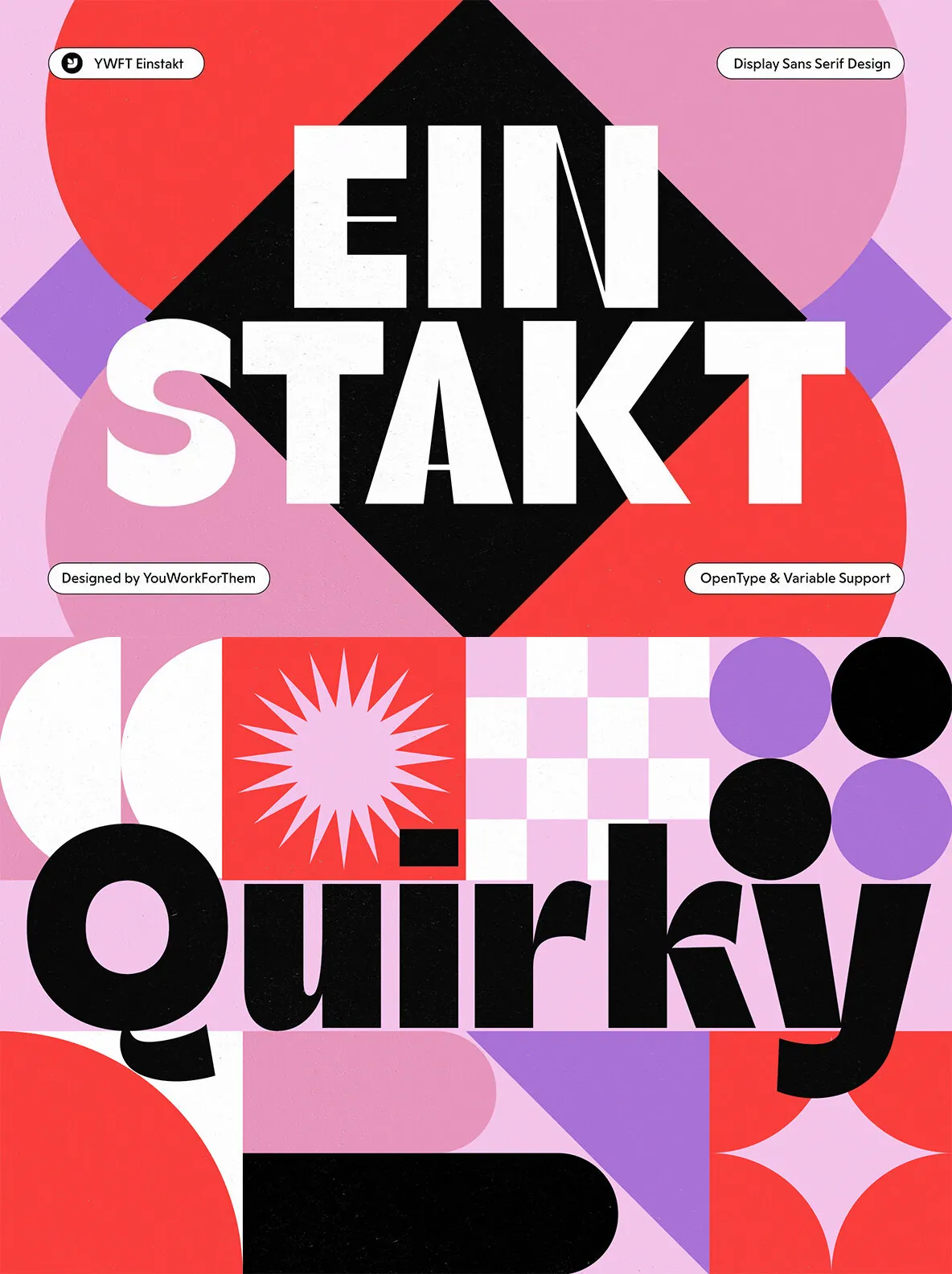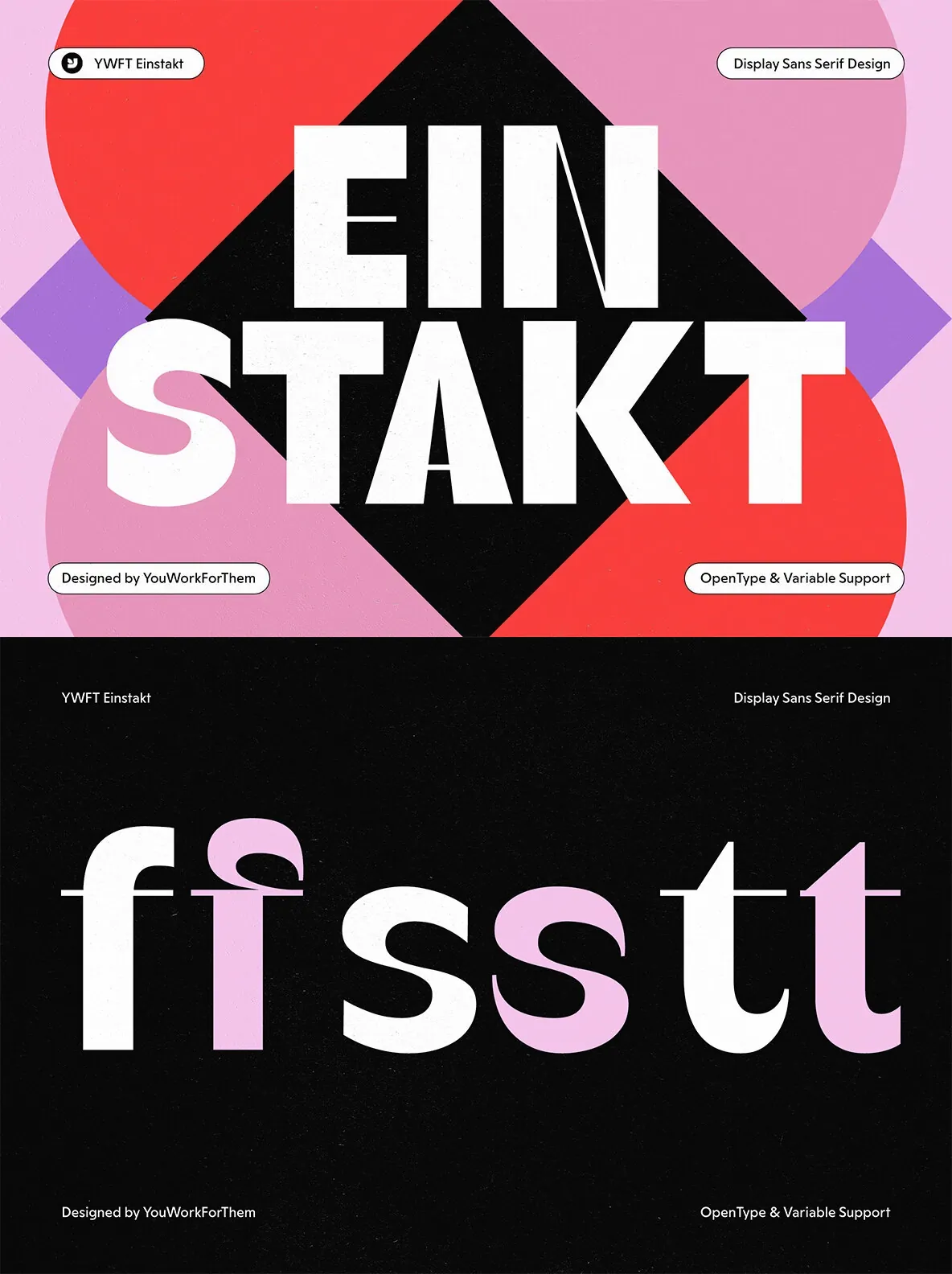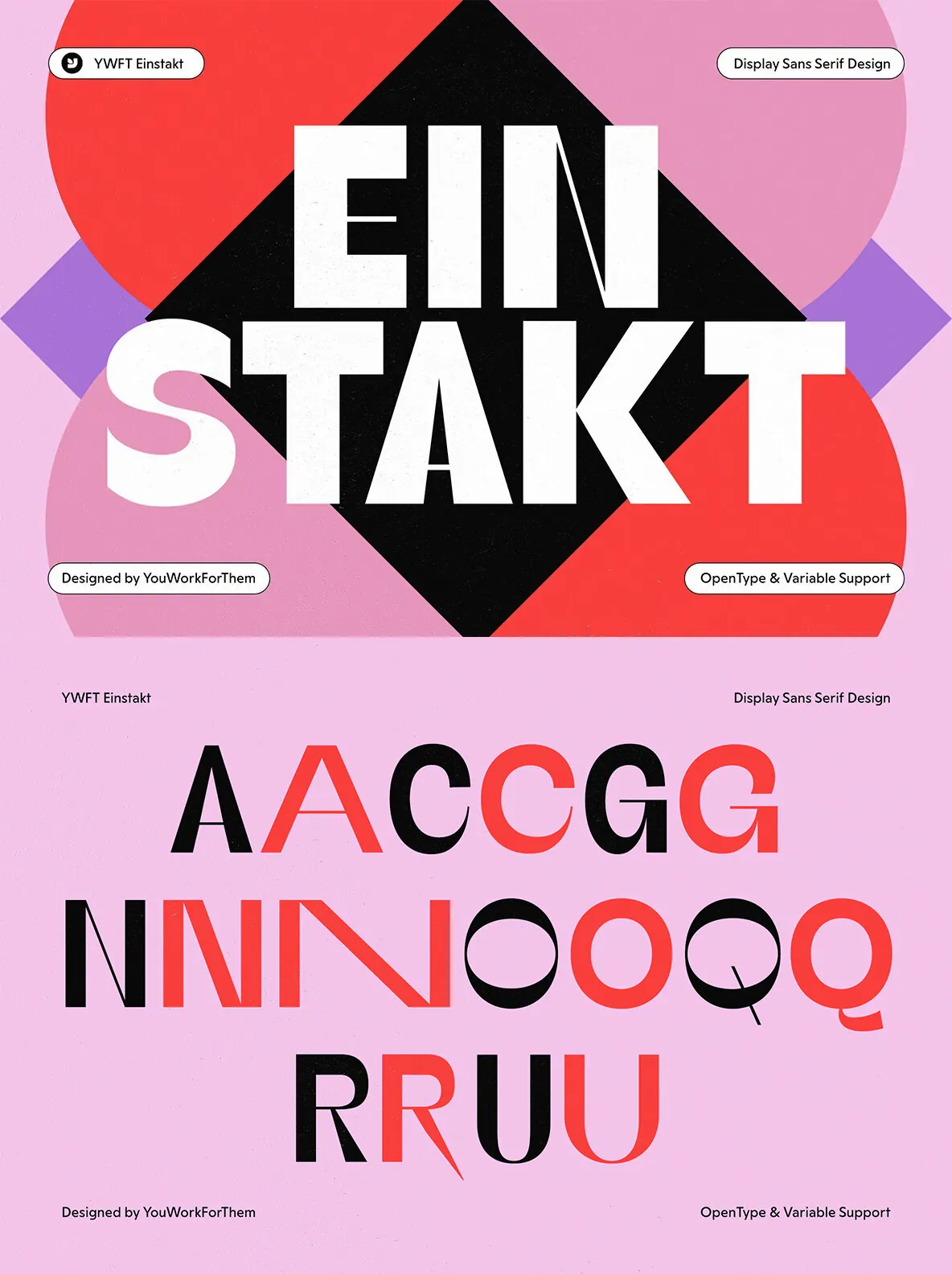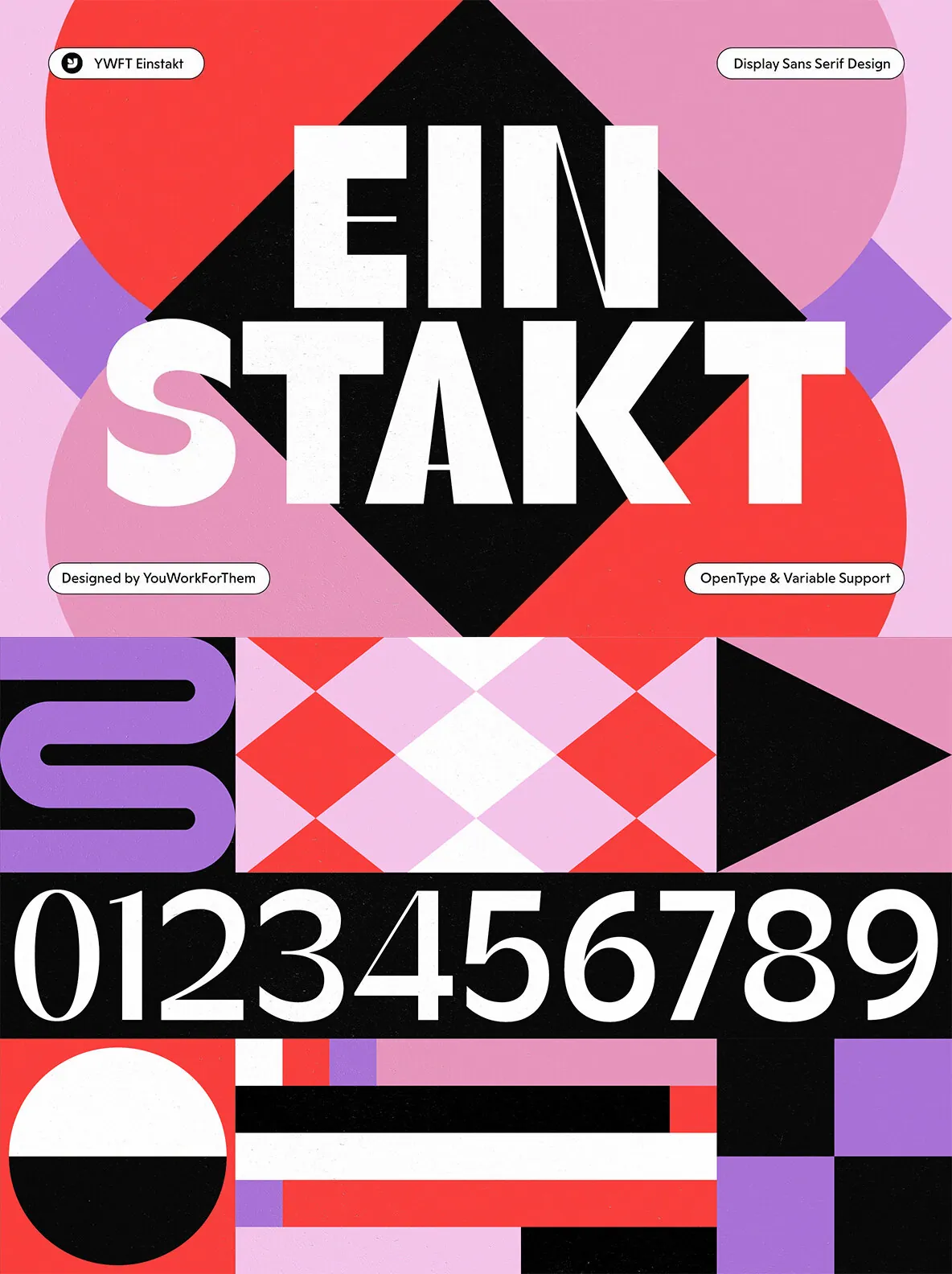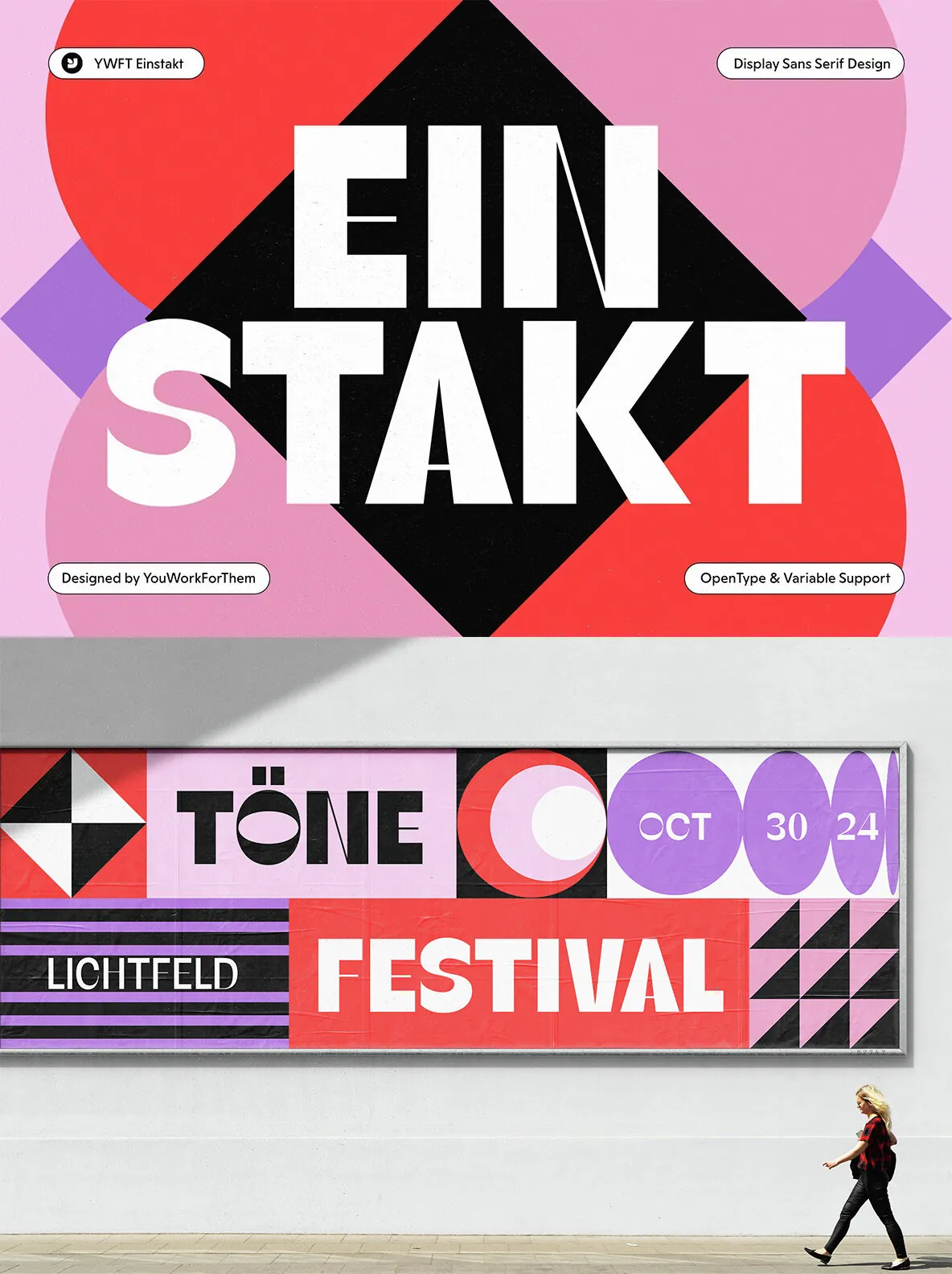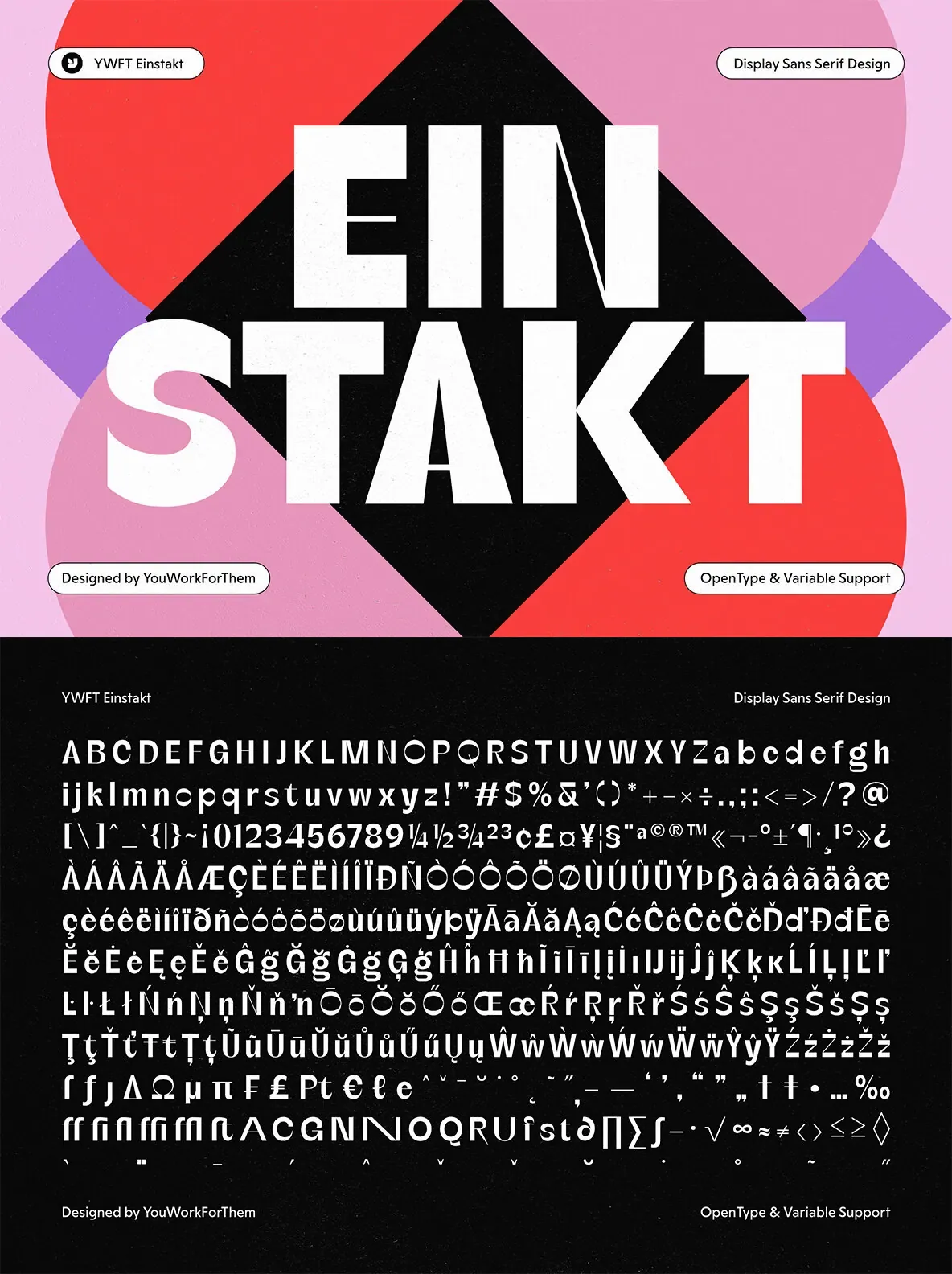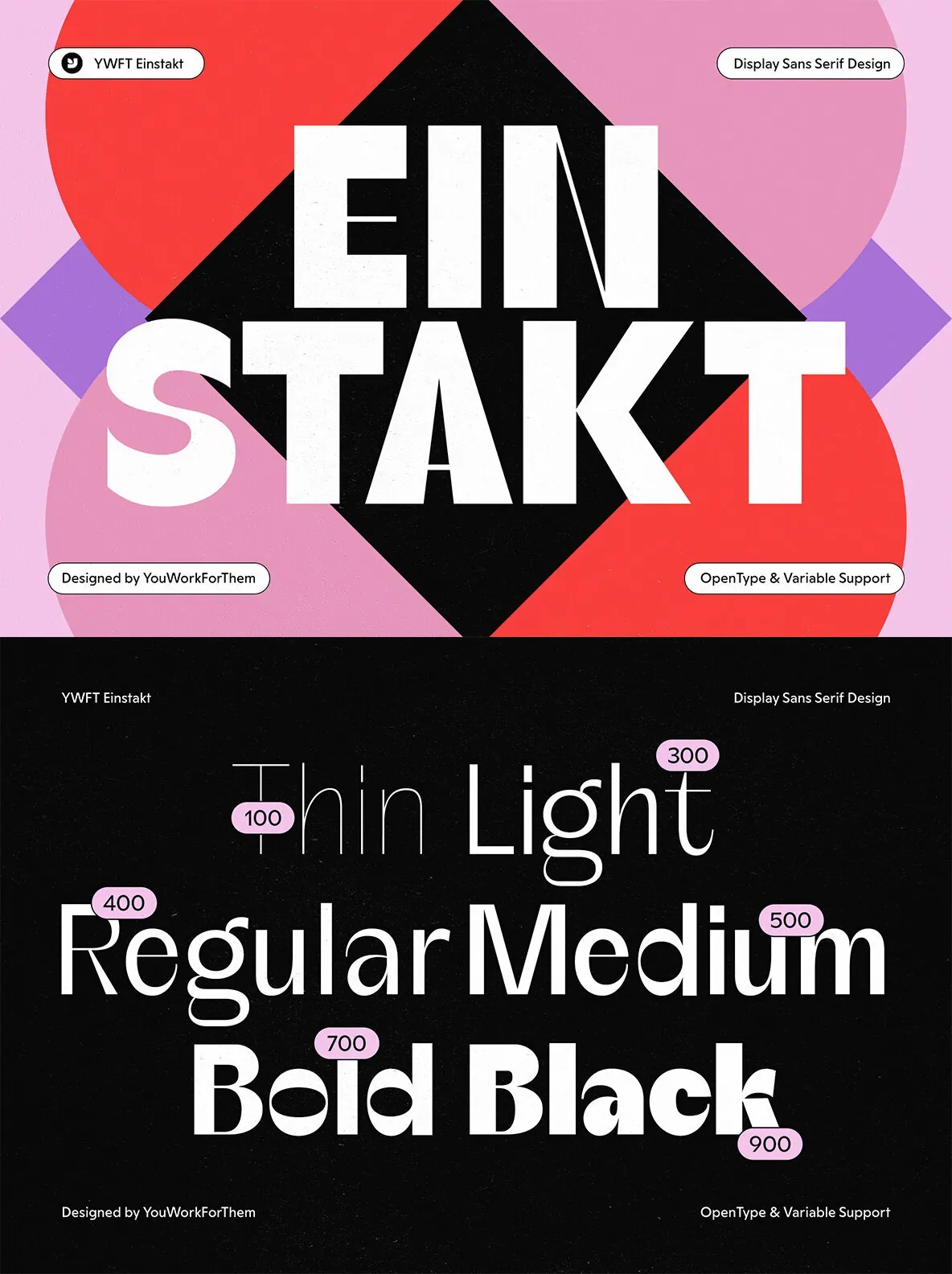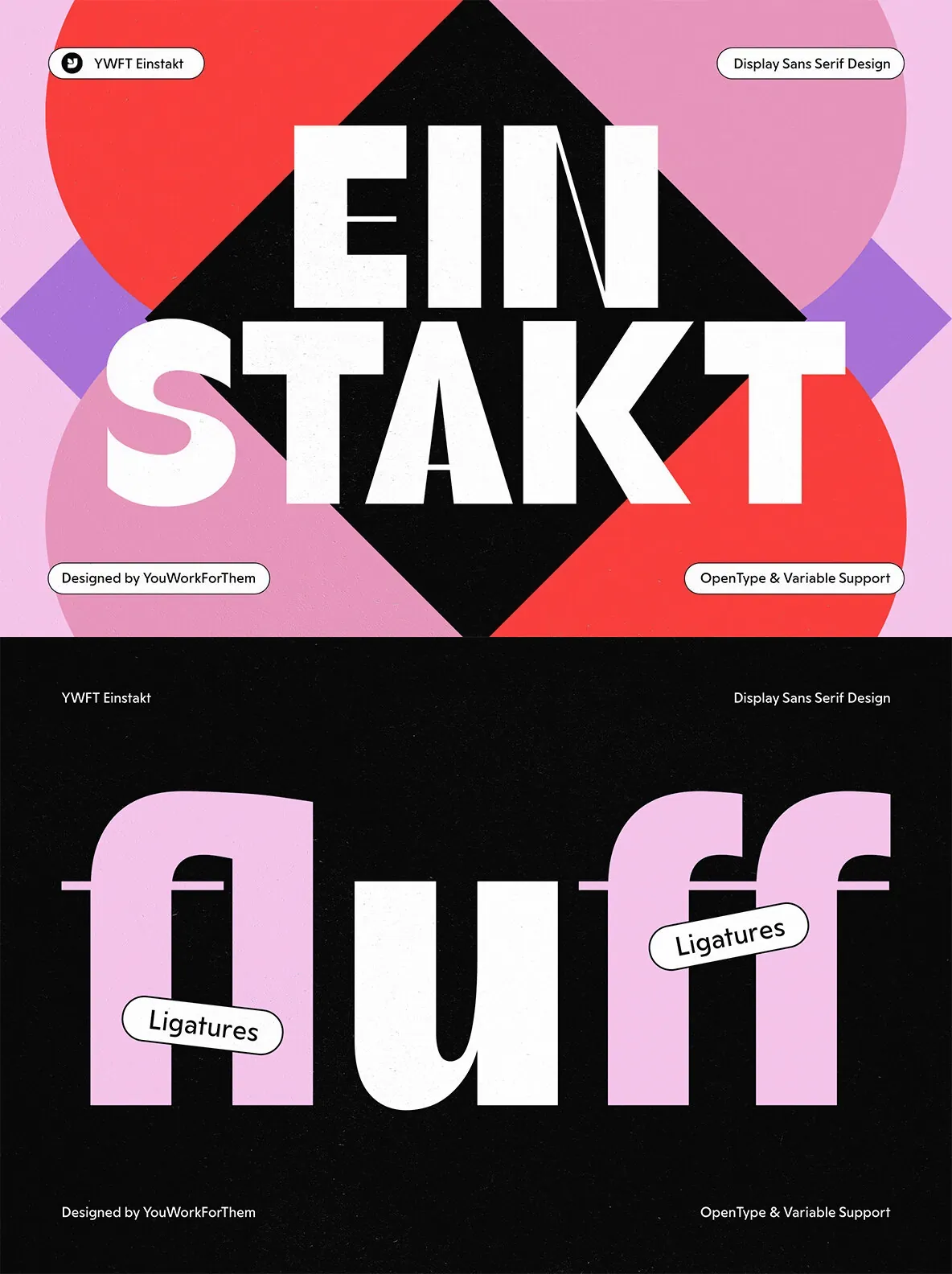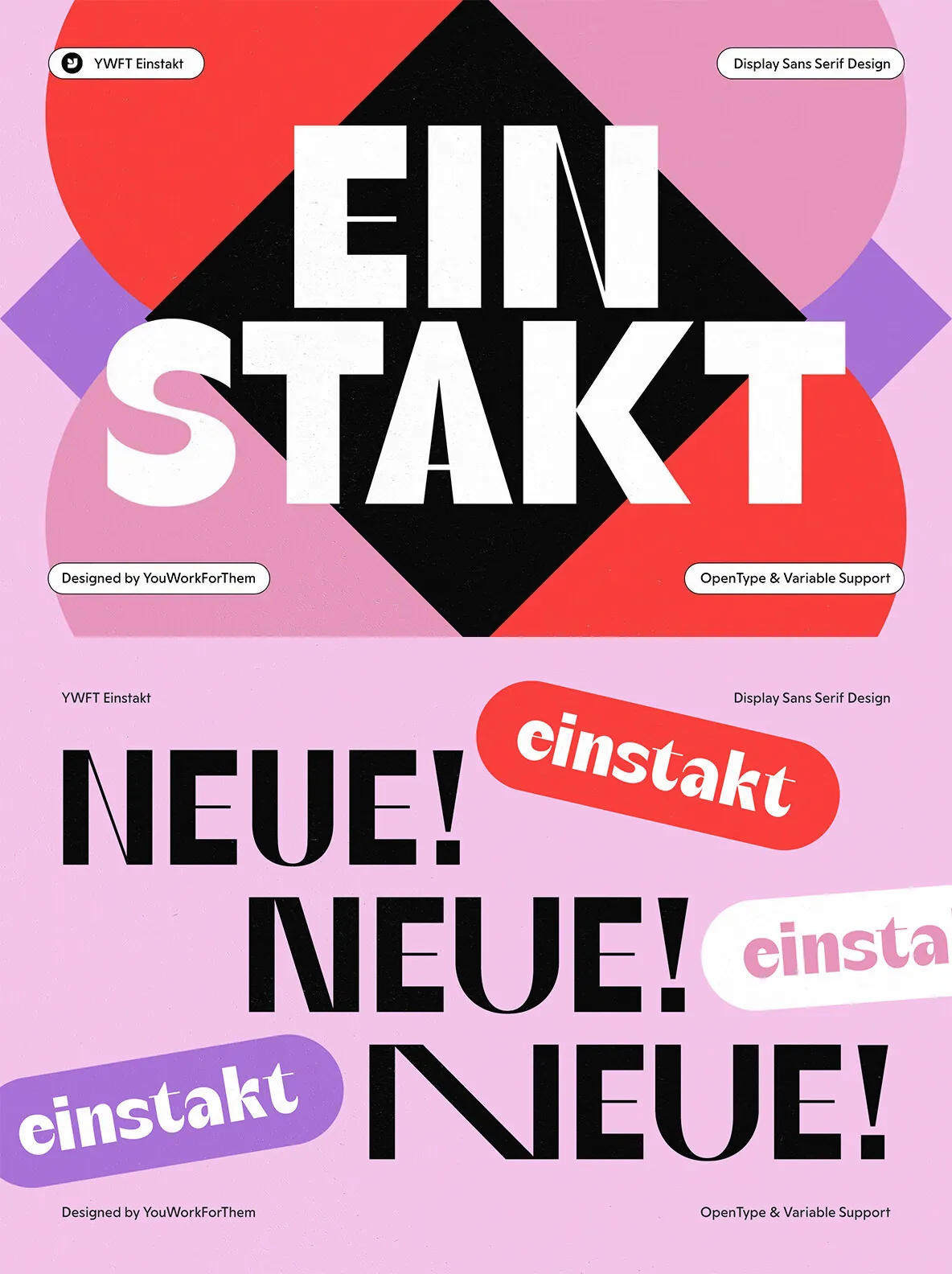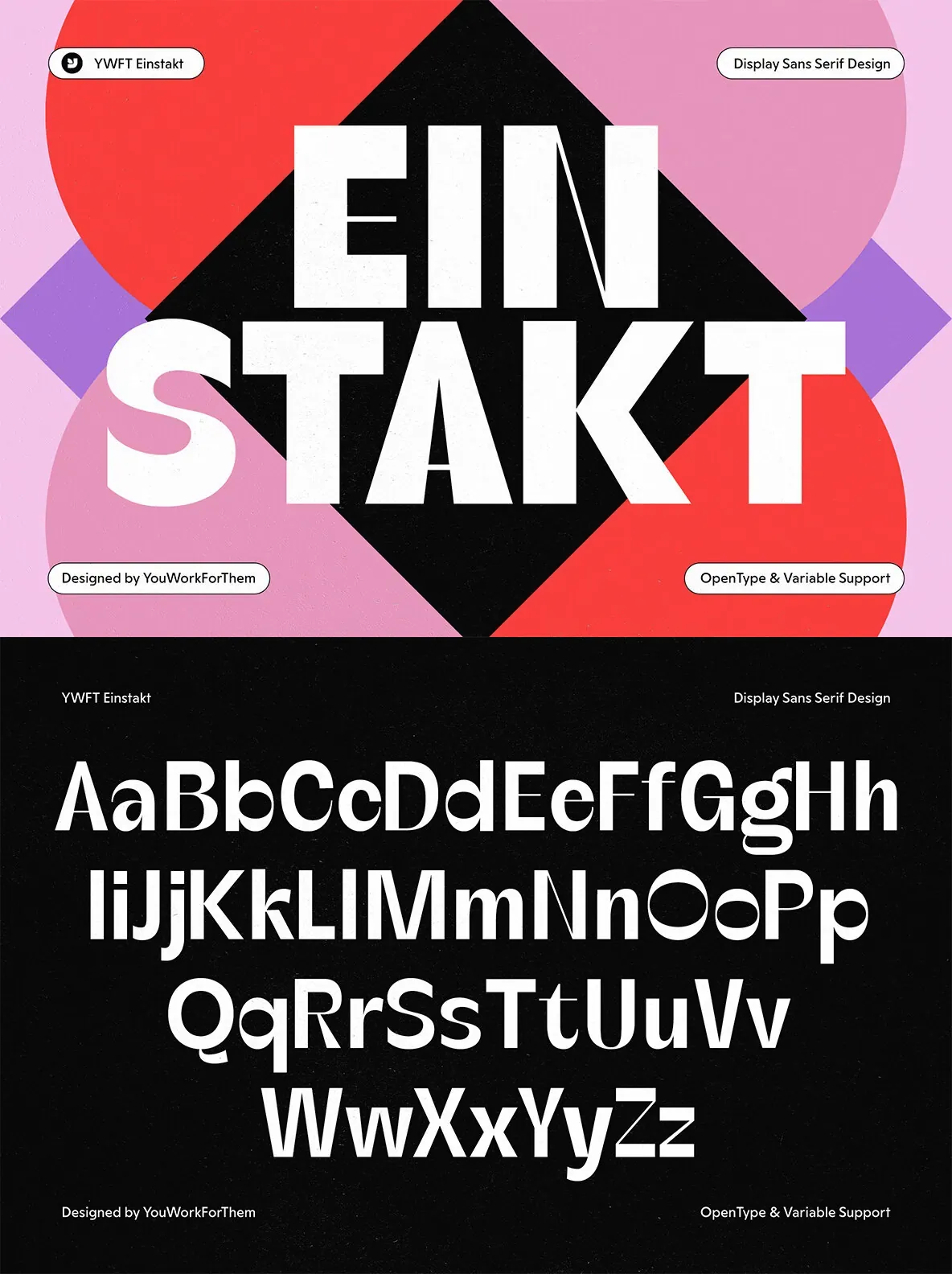
YWFT Einstakt: A Modern Typeface with a Unique Twist
YWFT Einstakt, inspired by a recent journey to Iceland, encapsulates the distinct blend of ‘
futurist sans-serifs
‘ with playful, quirky angles, particularly noticeable in the lowercase letters. In Icelandic, “Einstakt” means unique, and this typeface delivers on that promise by combining contemporary typographic trends with a fresh, individual flair.
Perfect for modern food brands and a wide range of industries—such as cosmetics, lifestyle, and web design—YWFT Einstakt’s versatile character makes it ideal for branding projects targeting younger generations.
Typeface Features
9 Weights
: Offering a wide spectrum from light to bold, each weight is designed for flexibility across print and digital media.
Variable Font Option
: A variable font version is available, providing designers with seamless control over weight variations within a single file.
Extensive Glyph Set
: Over 400 glyphs are included in each weight, supporting diverse languages and design needs.
OpenType Features
YWFT Einstakt comes equipped with a range of OpenType features to enhance typographic creativity:
Access All Alternates
Case Sensitive Forms
Fractions
Localized Forms
Ordinals
Standard Ligatures
Stylistic Alternates and Sets
Superscript